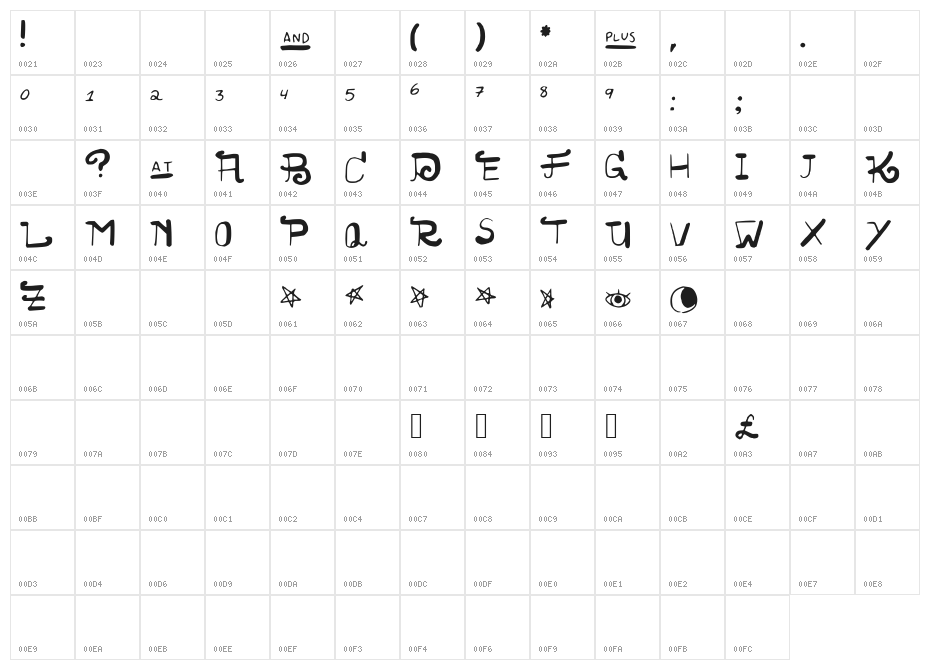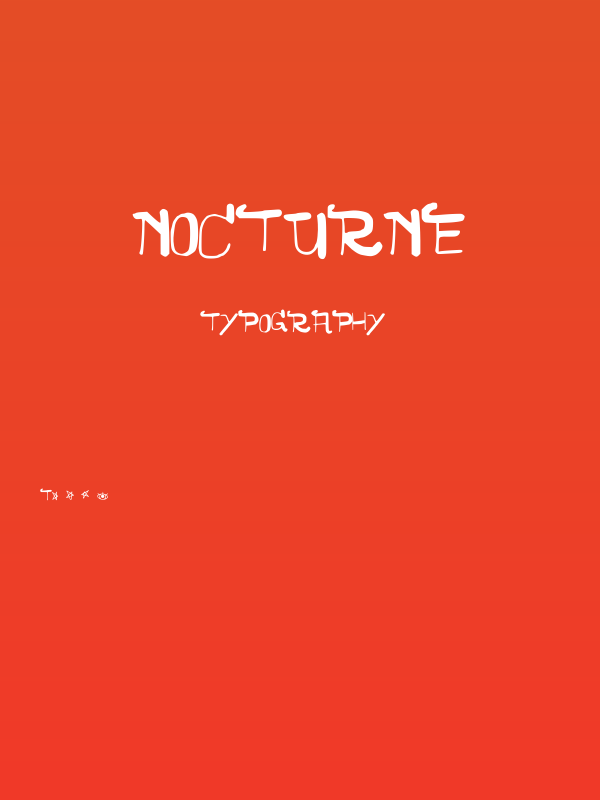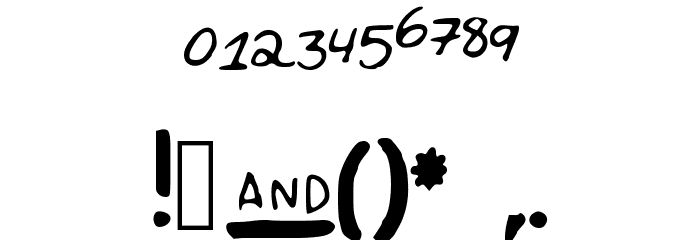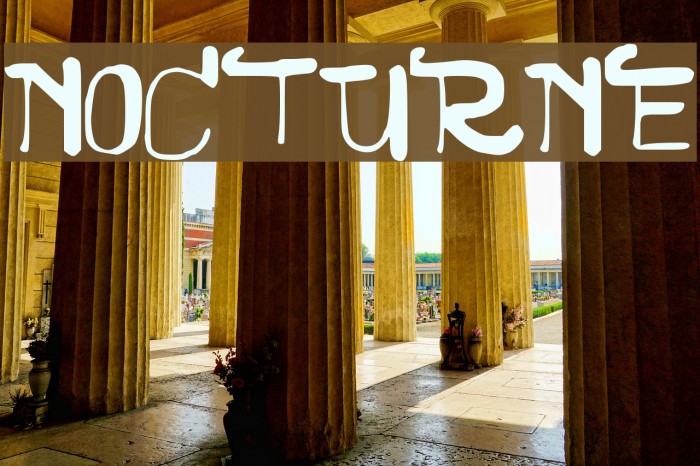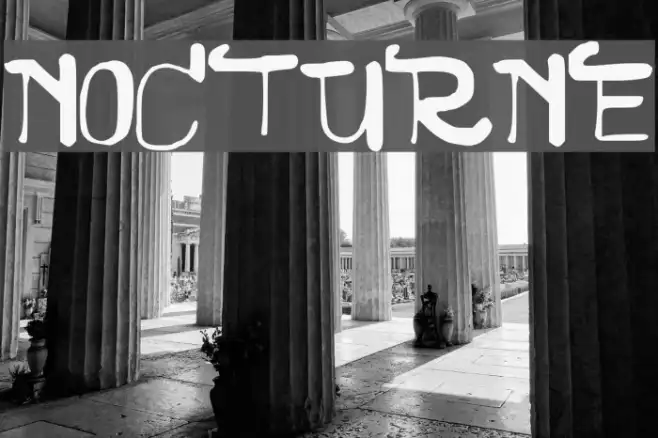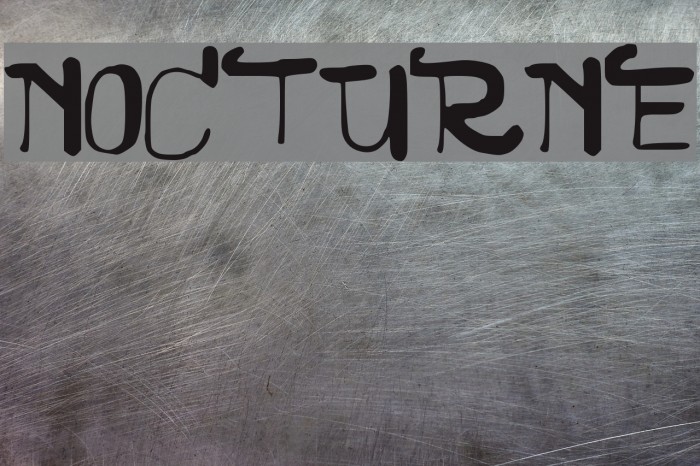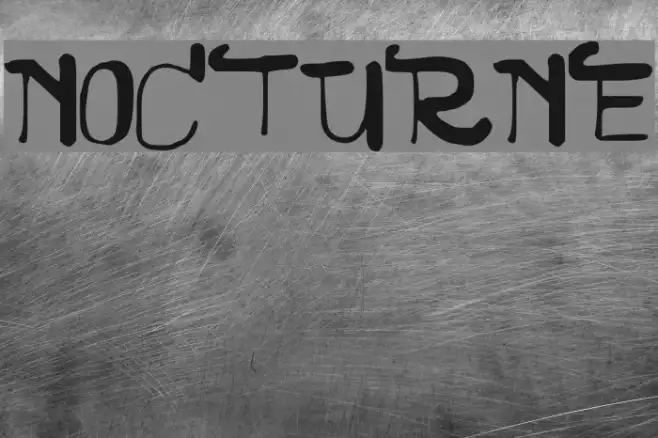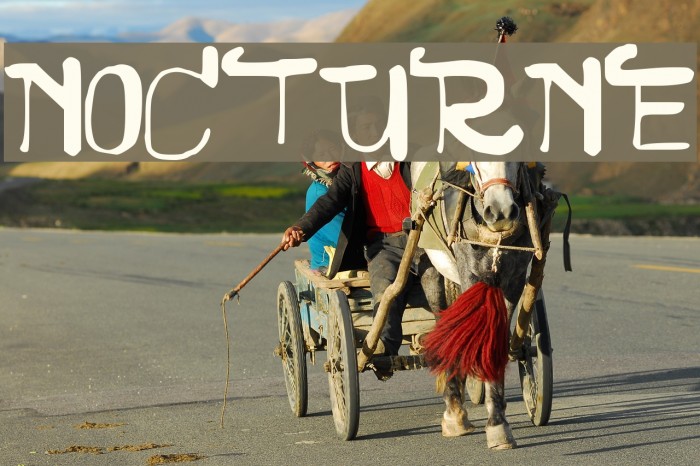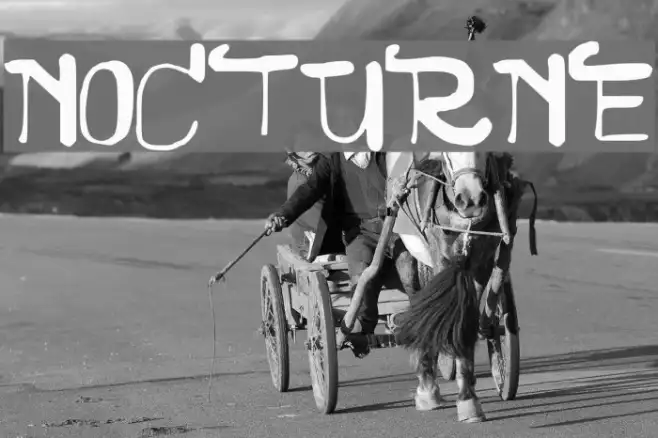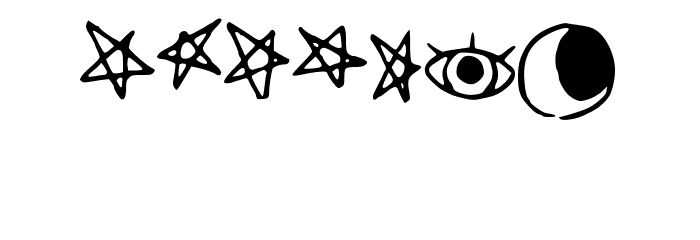
NOCTURNE Font
NOCTURNE Description
This font features a whimsical and playful design, characterized by its unique and artistic letterforms. Each character is crafted with a sense of creativity, incorporating elements that resemble hand-drawn illustrations. The uppercase letters exhibit a bold and decorative style, with some characters incorporating swirls and curves that add to the overall artistic flair. The lowercase letters maintain this playful aesthetic, ensuring consistency throughout the typeface. Numbers are designed with a similar approach, offering a cohesive look. Special characters, including stars and other symbols, enhance the font's decorative nature. This font is ideal for projects that require a touch of creativity and imagination, making it suitable for artistic and themed designs.
| Use Case | Headlines, Logos, Artistic projects |
| Proposed Projects | Ideal for children's books, creative posters, themed invitations, and artistic branding. |